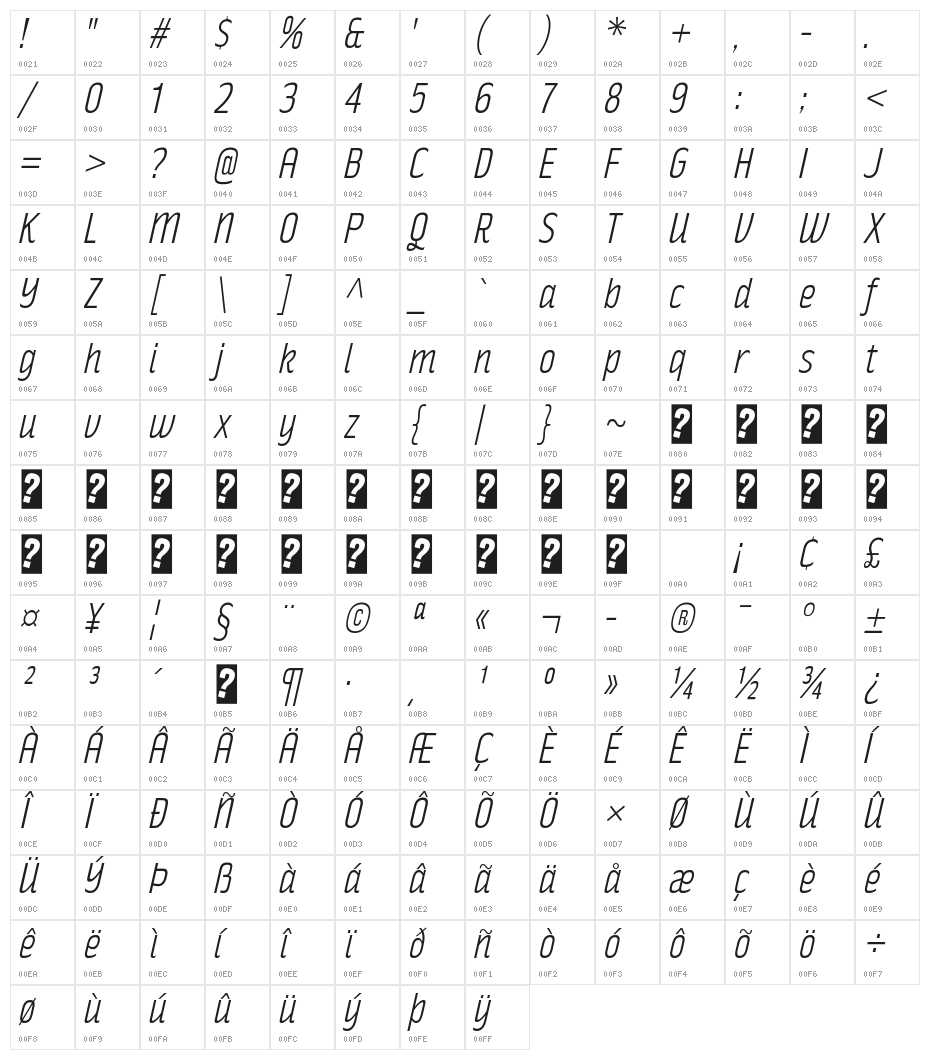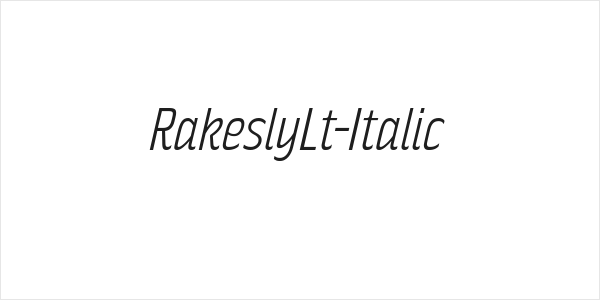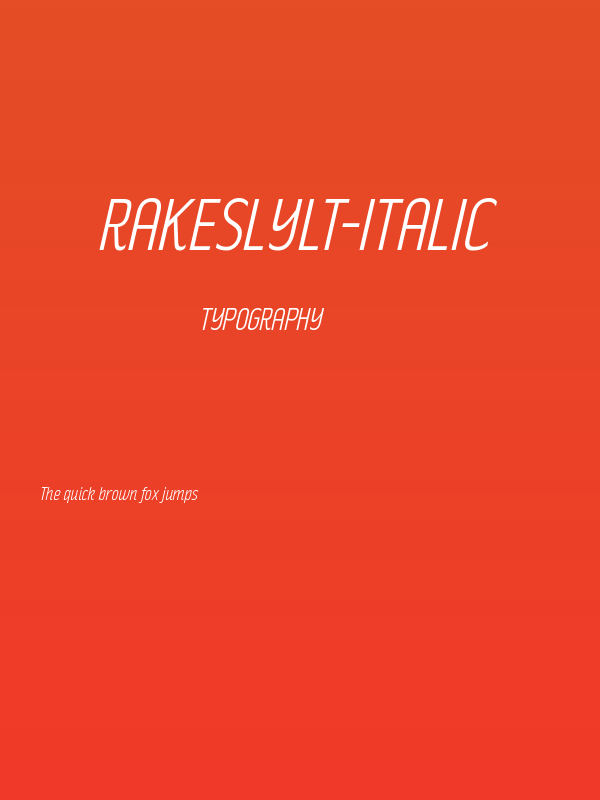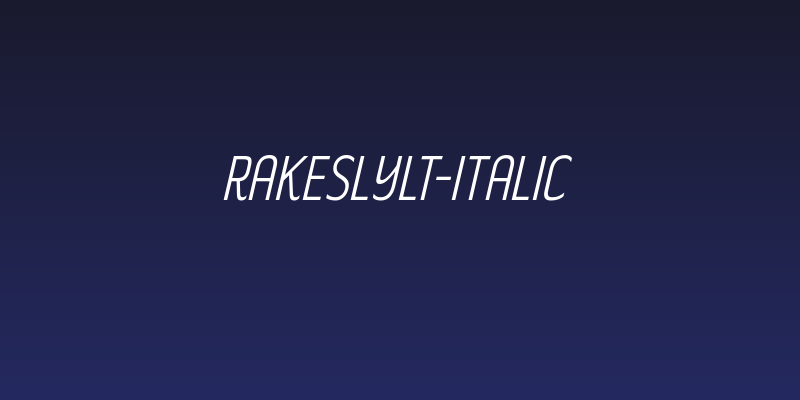
RakeslyLt-Italic Font
RakeslyLt-Italic Description
This font features a sleek and modern design with a slightly italicized style, giving it a dynamic and forward-moving appearance. The characters are elongated with a consistent stroke width, providing a clean and uniform look. The uppercase and lowercase letters maintain a harmonious balance, while the numerals are clear and easy to read. The special characters are distinct and well-integrated into the overall design, making it versatile for various applications. Its contemporary aesthetic is suitable for projects that require a touch of elegance and sophistication.
| Use Case | Headlines, Logos, Editorial design |
| Proposed Projects | Ideal for branding, advertising, and editorial design where a modern and elegant touch is desired. |